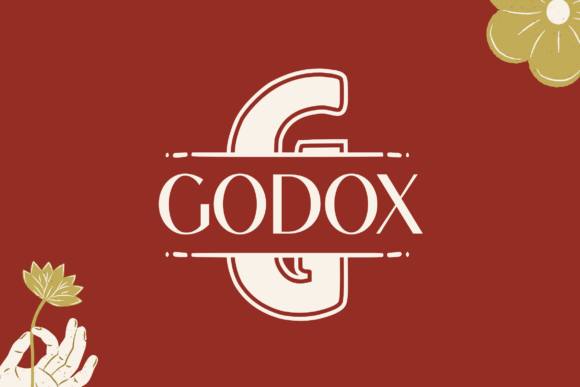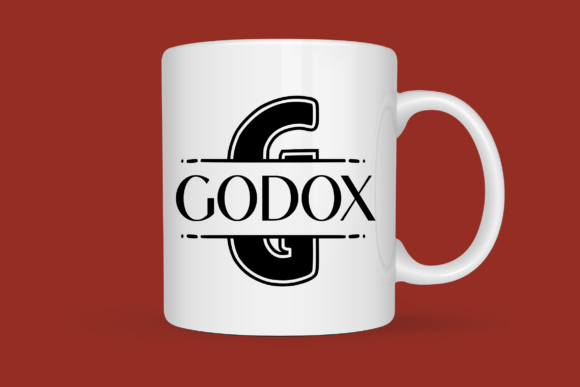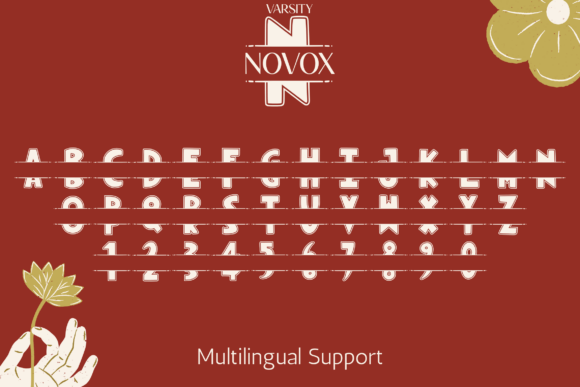
Introduction to Novox Varsity Monogram Font
Novox Varsity Monogram is a bold, structured font that captures the classic collegiate spirit with a modern monogram twist.
Designed for sports-themed designs, school merchandise, team uniforms, and retro varsity aesthetics, this font delivers strong visual impact with clean, angular lines and all-caps versatility Perfect for those who want to add a bold identity to custom initials or school-related branding.
Key Features of Novox Varsity Monogram Font
Why Choose Novox Varsity Monogram Font?
Novox Varsity Monogram Font offers exceptional quality and versatility, making it a valuable addition to your design toolkit. Whether you’re creating for personal projects or commercial use, Novox Varsity Monogram Font delivers professional results.